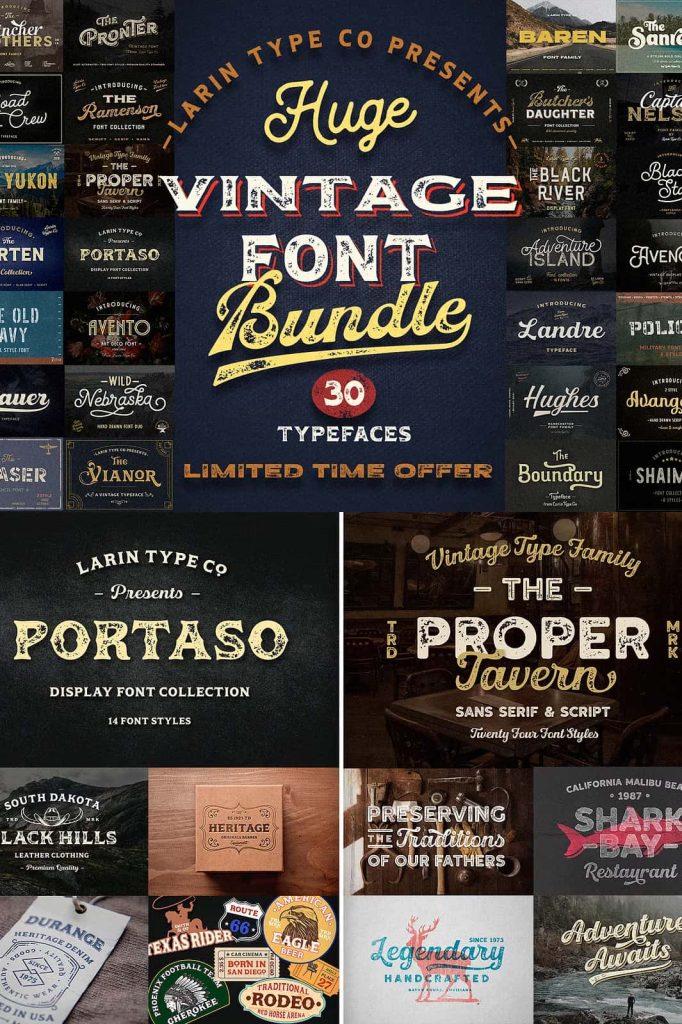
Huge Vintage Font Bundle This Vintage fonts was inspired by vintage signage, logos, label, poster, and etc. In this bundle you will find from script and monoline font to display serif, sans serif and stencil fonts with a variety of styles. Whatever the theme, these fonts will be a great addition to your font library. These fonts are incredibly versatile and are suitable for a wide range of designs, raising them to the highest level.